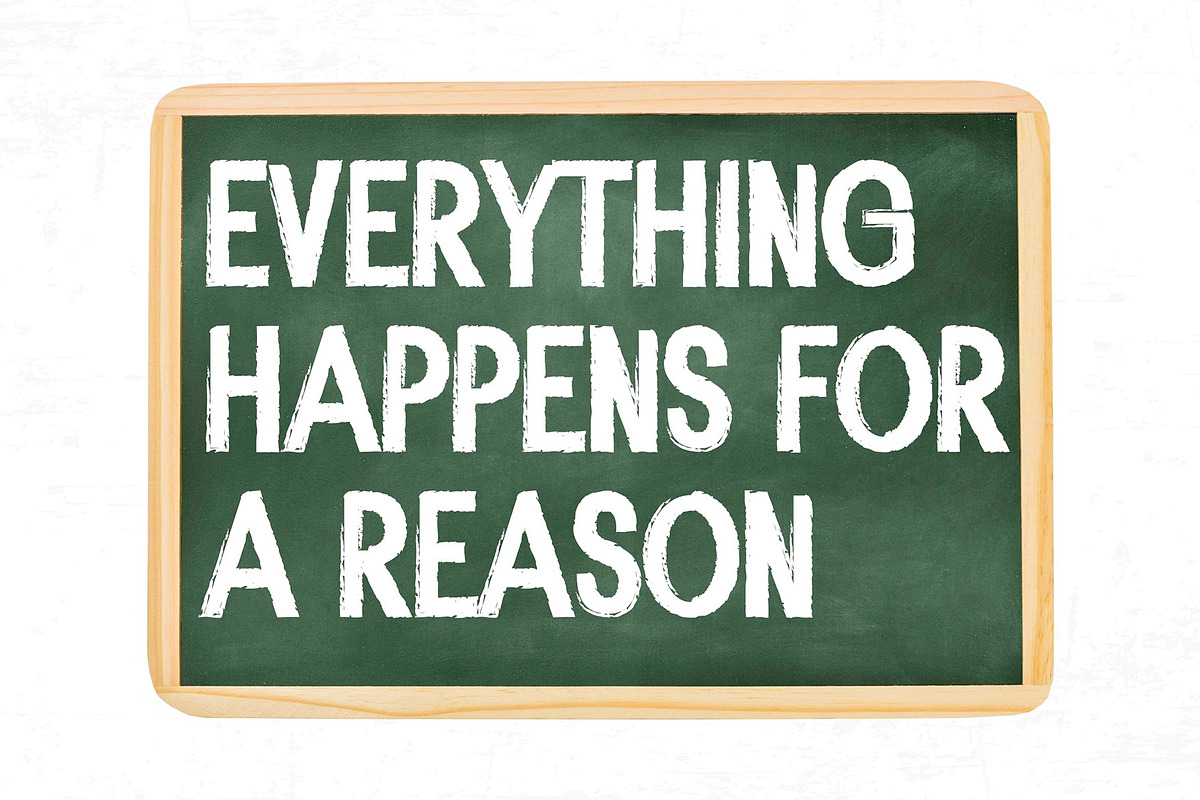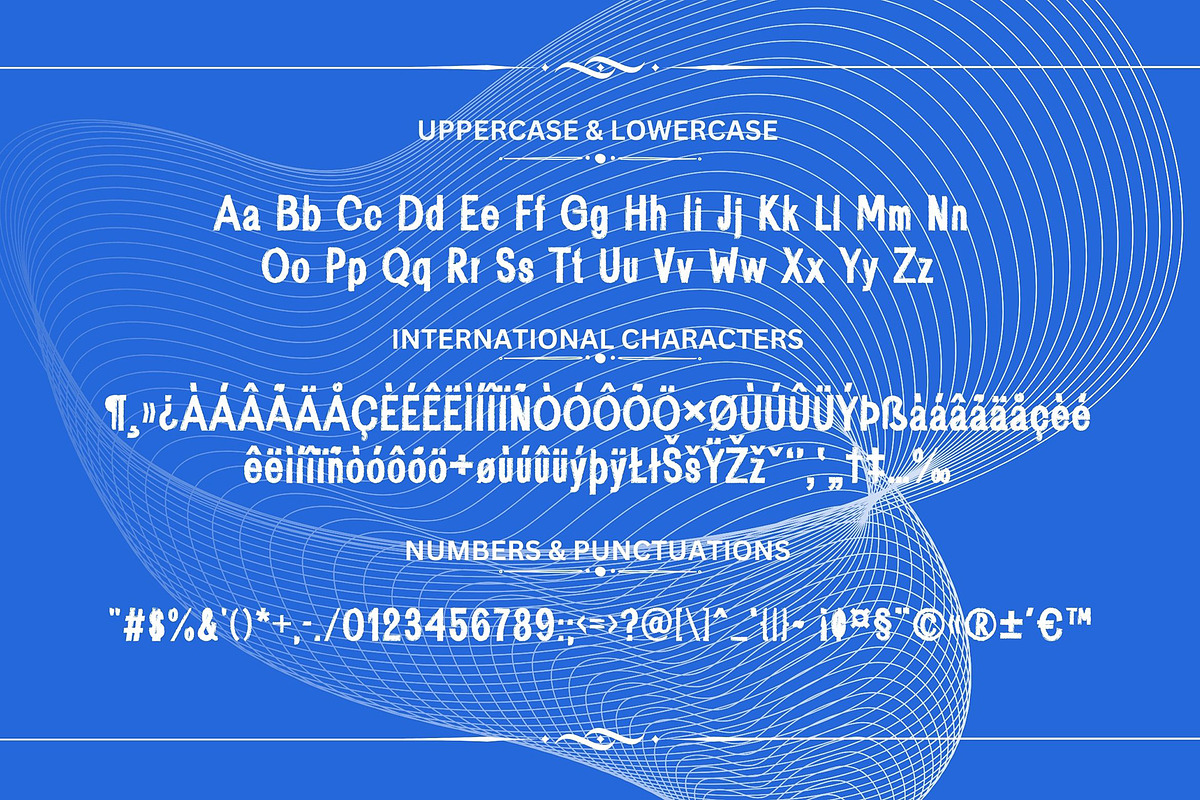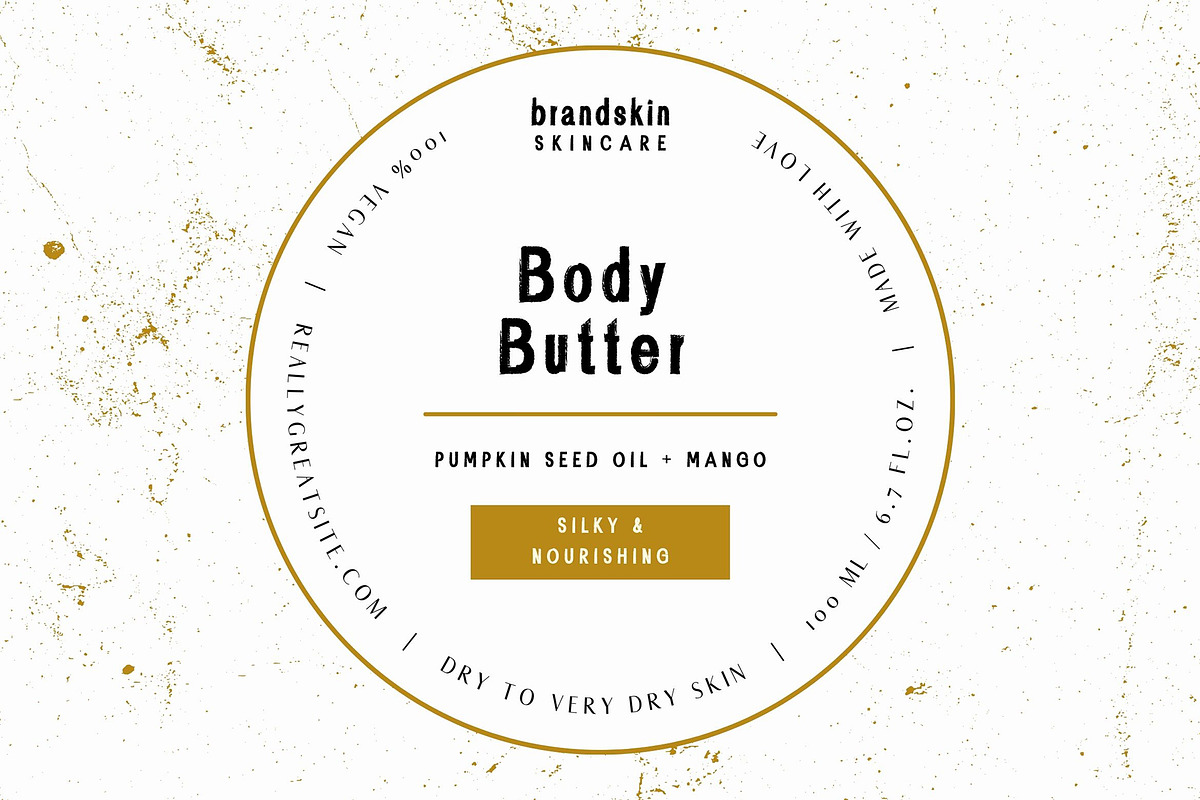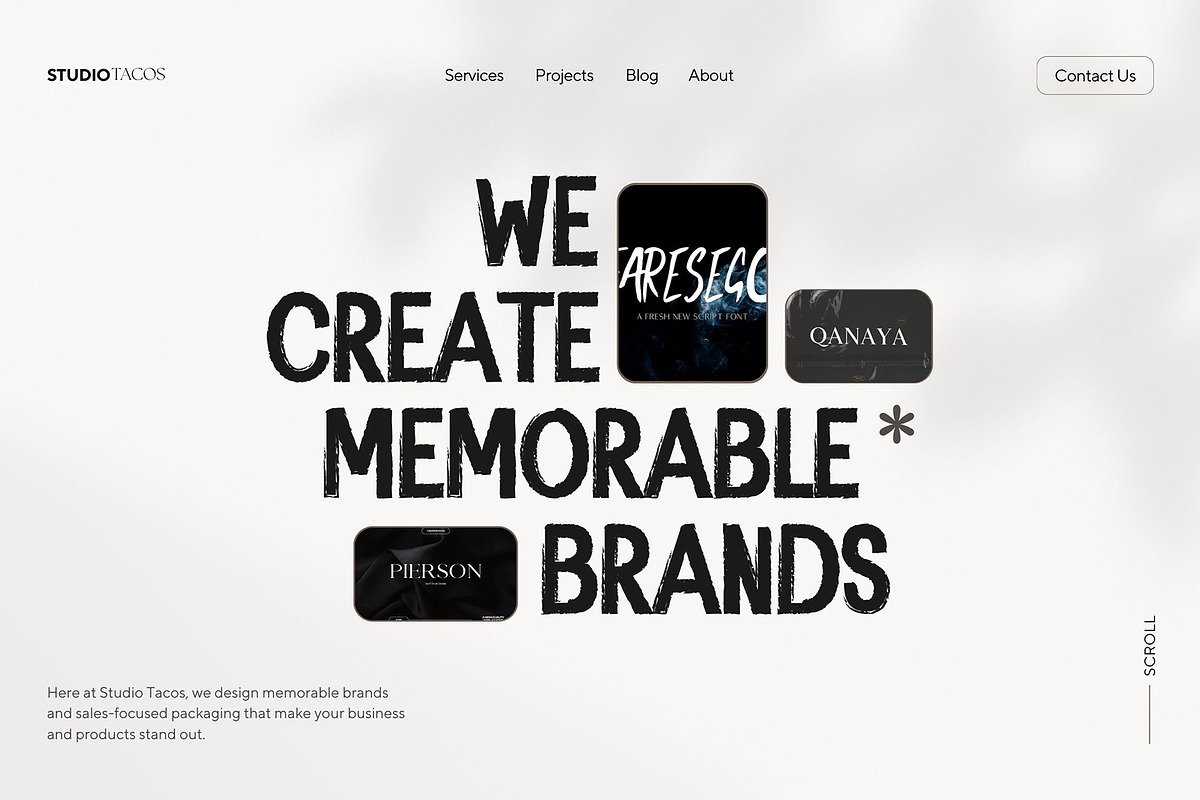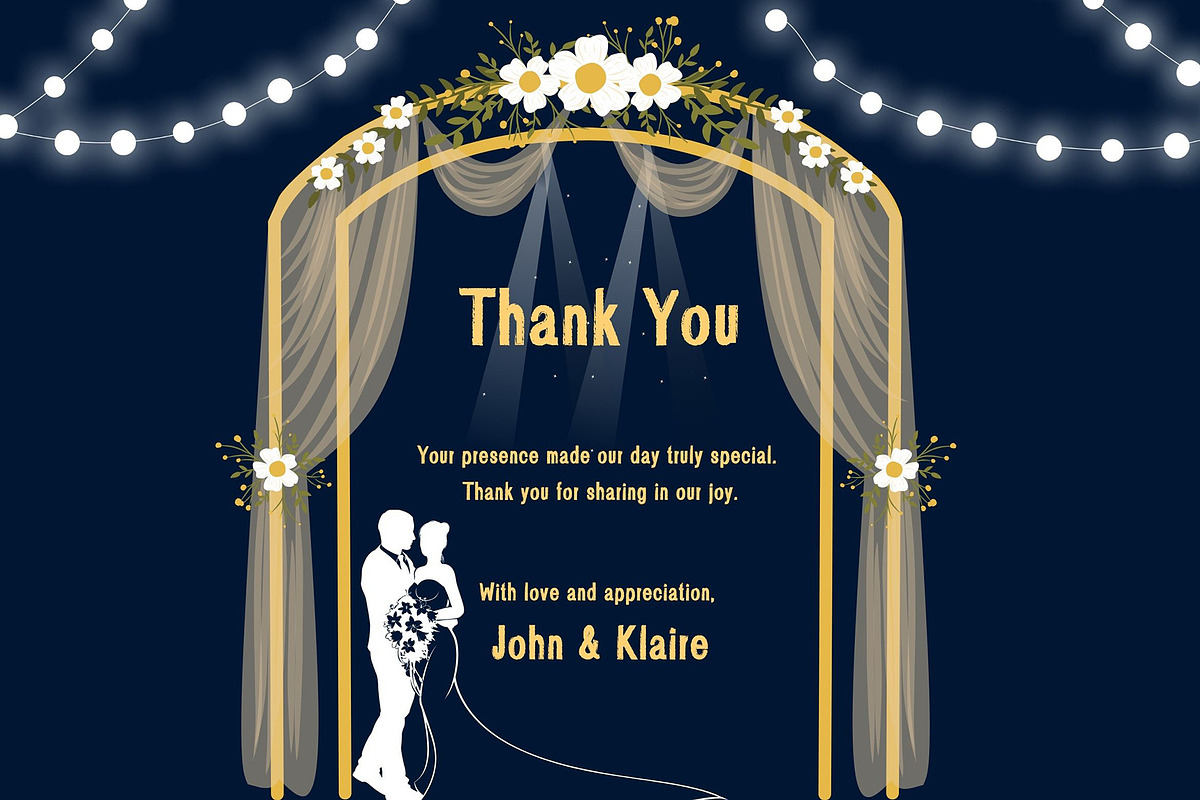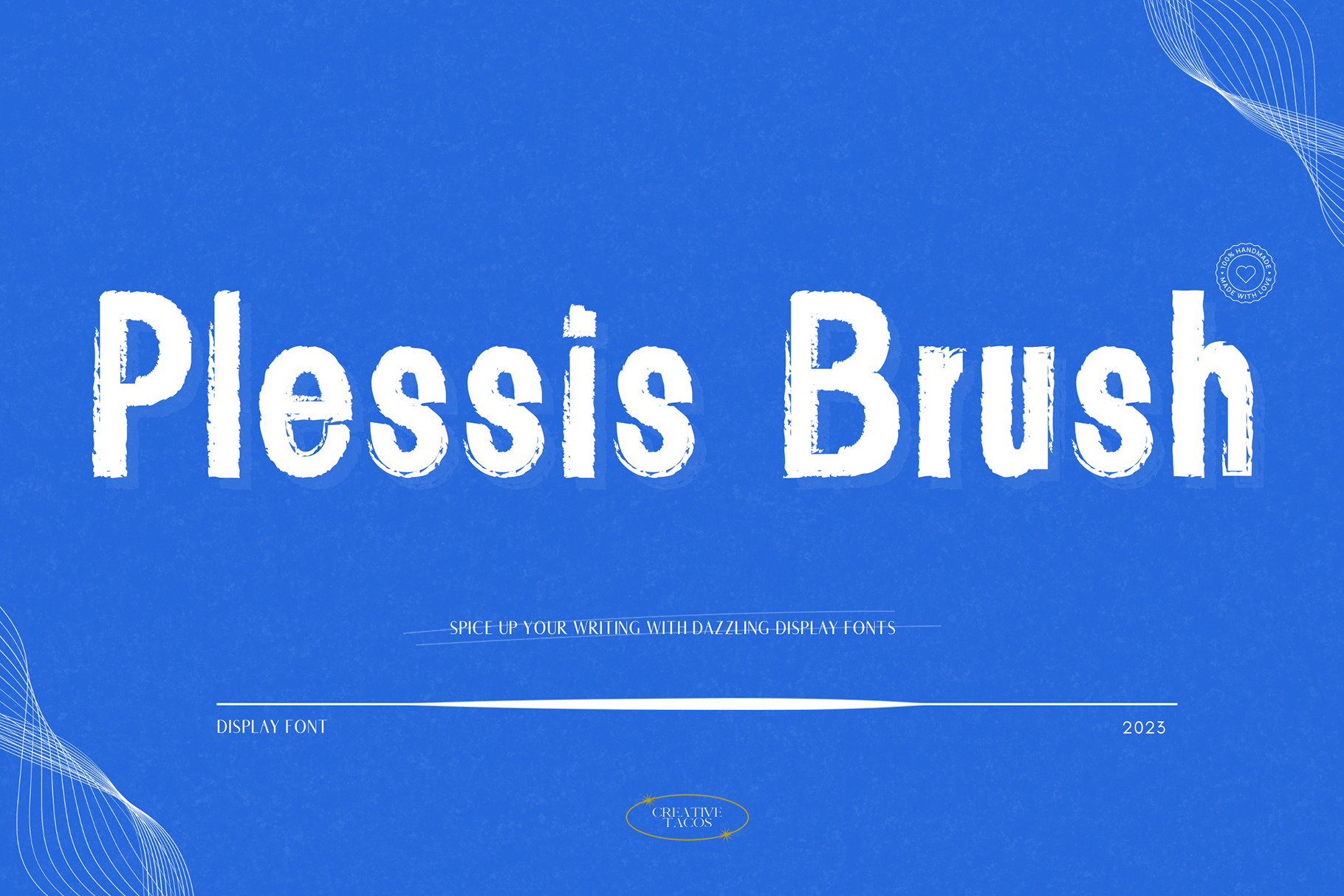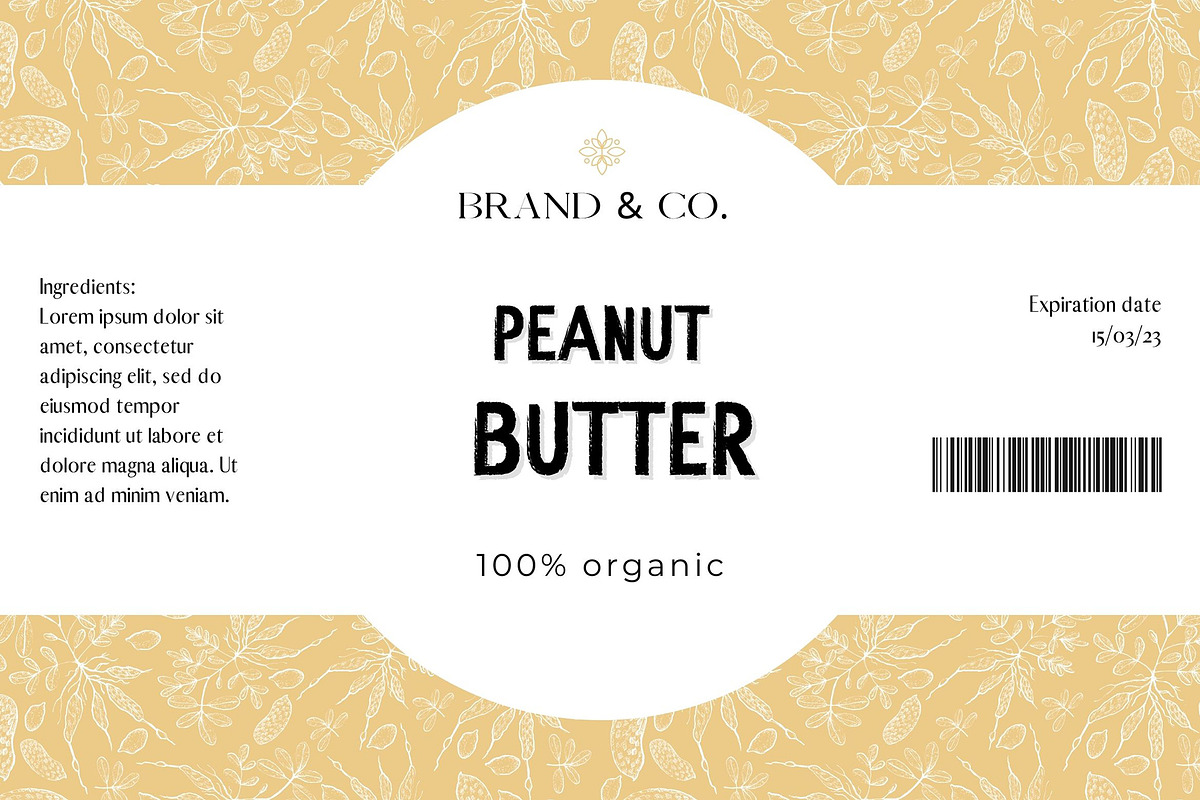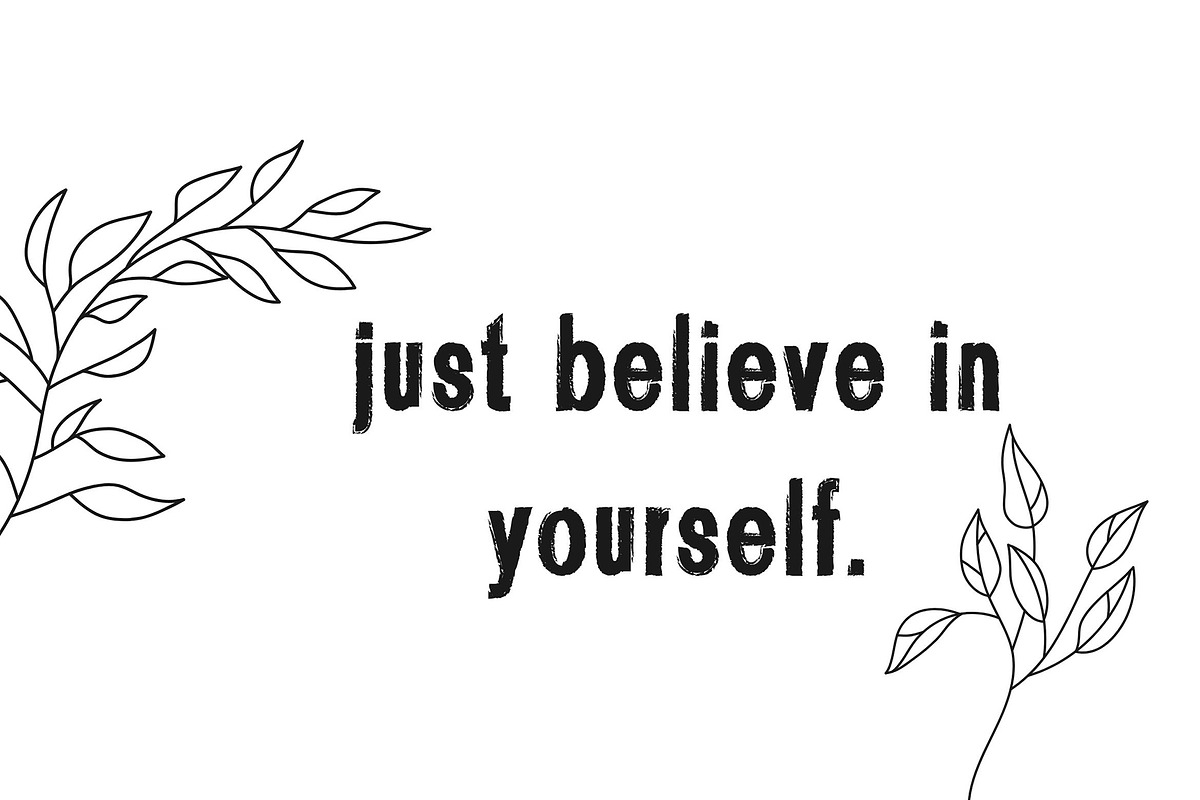
Plessis Brush Display Font
Welcome to our Plessis Brush Display Font! It's a lively, unique handwritten typeface that injects a contemporary and enjoyable twist to your forthcoming assignments. It equips you with everything you require - uppercase, lowercase, numbers, punctuation, and symbols- and even supports multiple languages.
Plessis is the typeface for every occasion! Utilize it for presentations, logos, headlines, handwritten styles, posters, branding, uplifting quotes, titles, layout of magazines, web design, adverts, invites, cover artwork, and any other inventive project on your list.
The Plessis Typeface is filled with:
- Capital Alphabets (Uppercase)
- Small Alphabets (Lowercase)
- Numerals & Symbols
- Multi-language Support